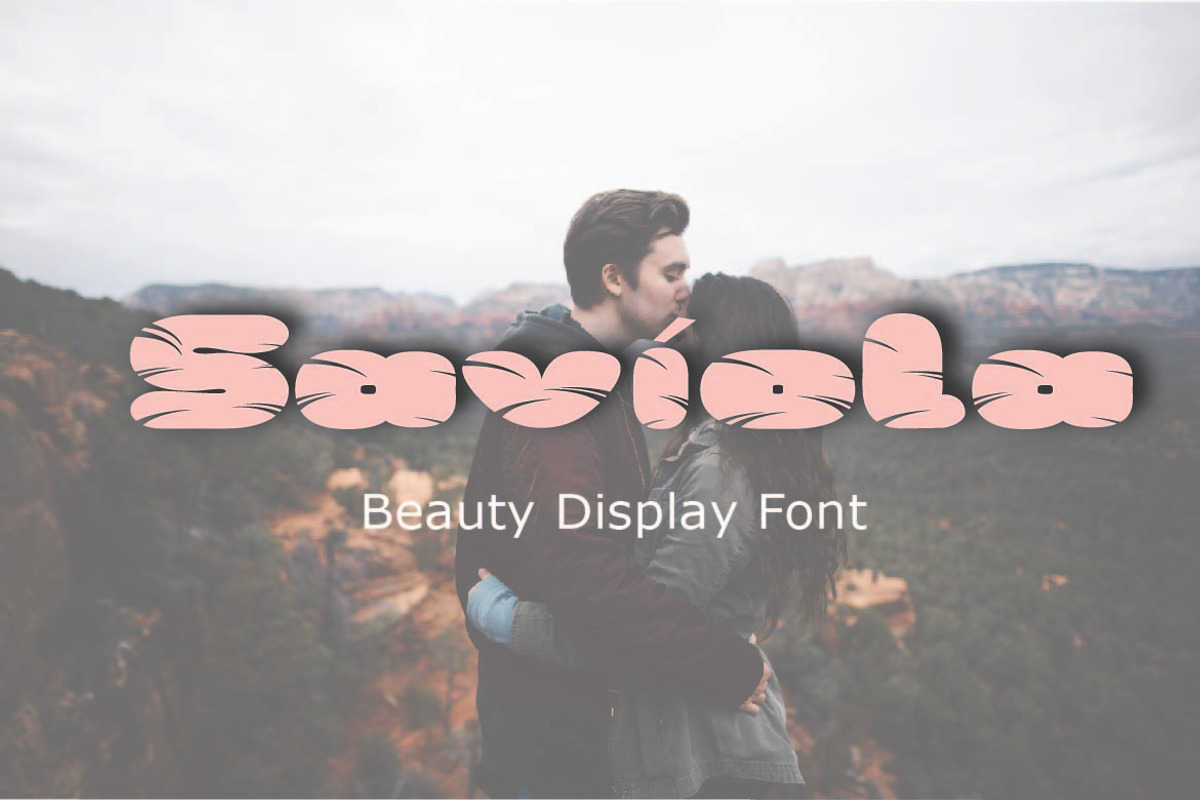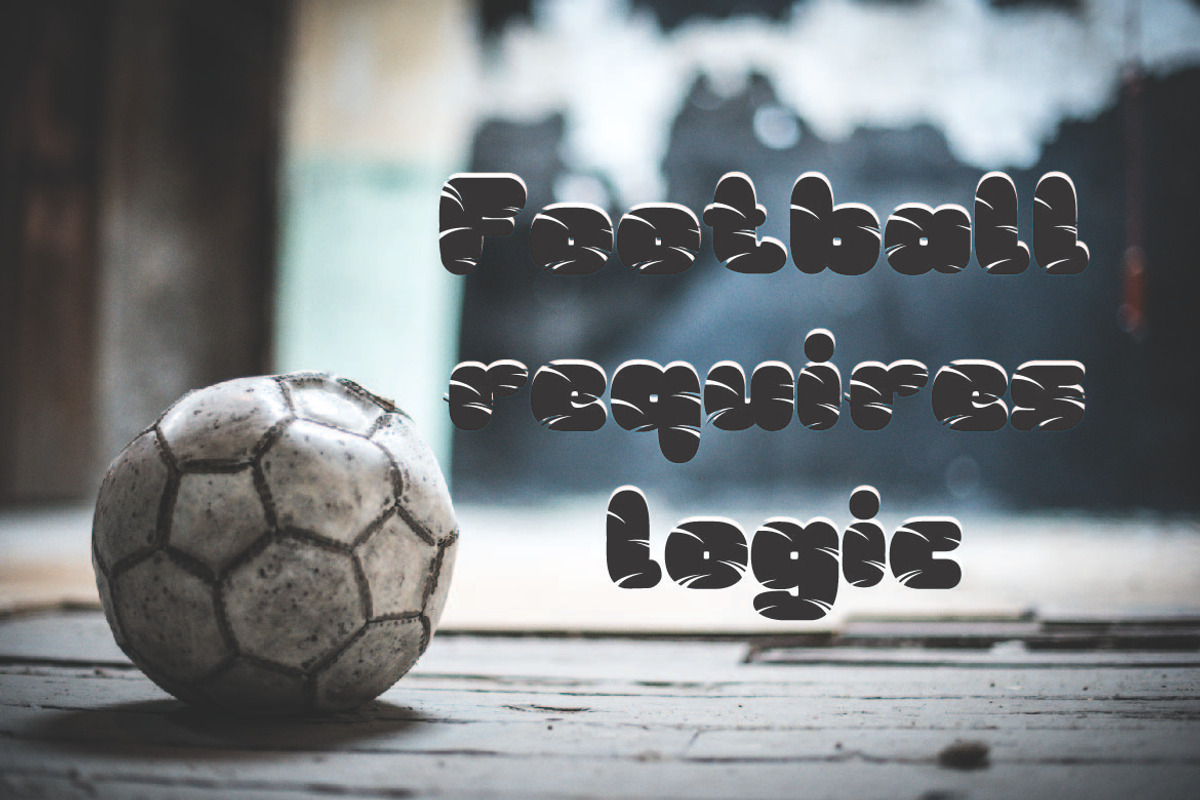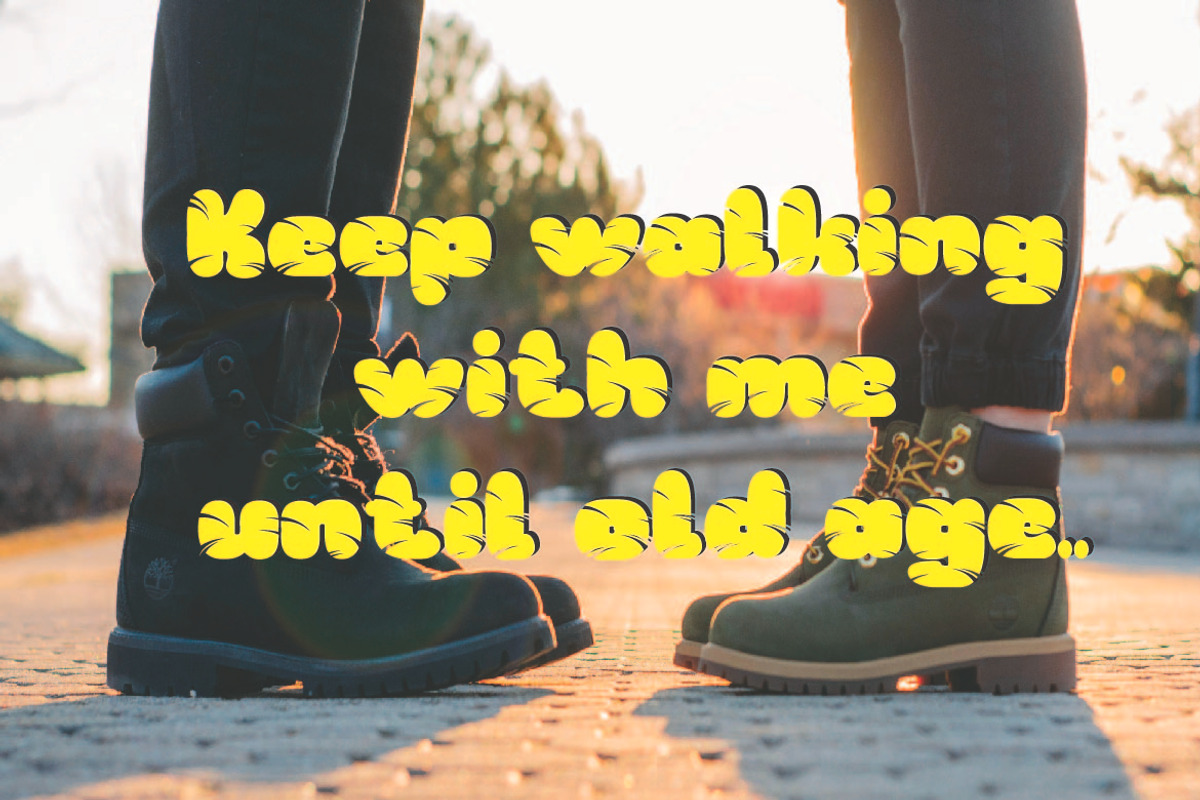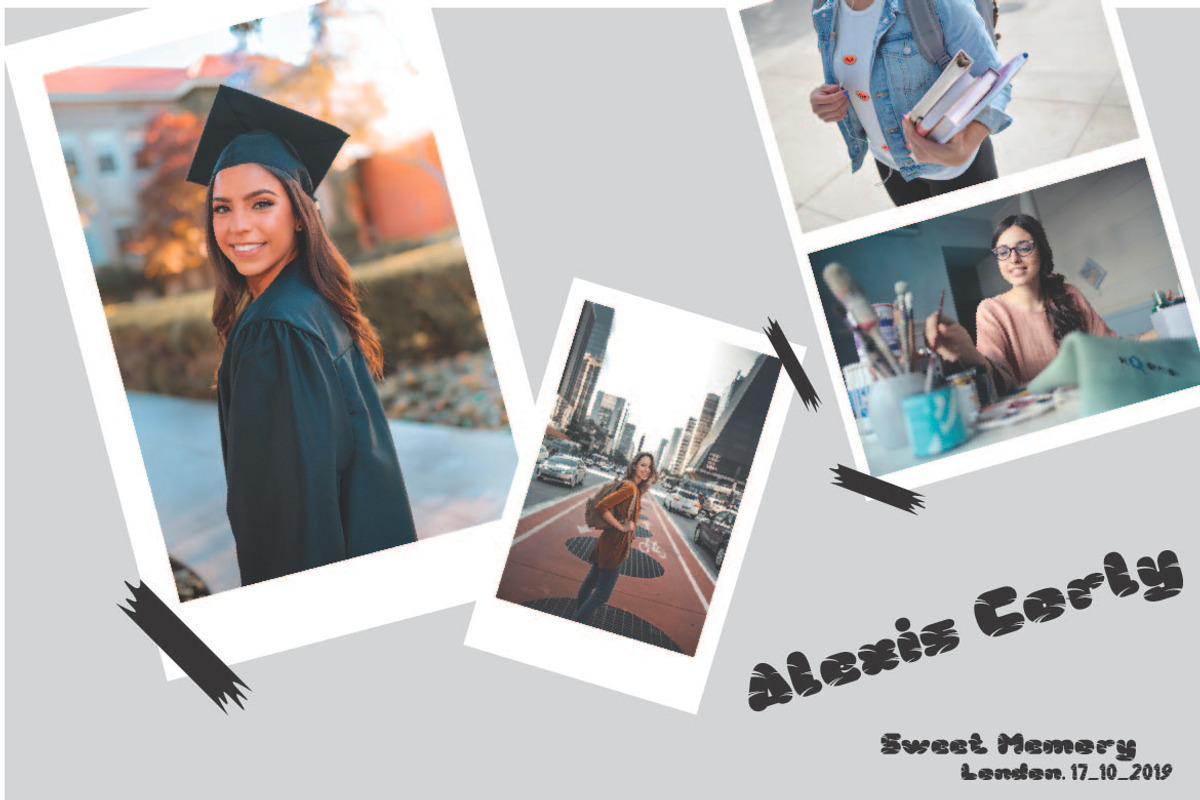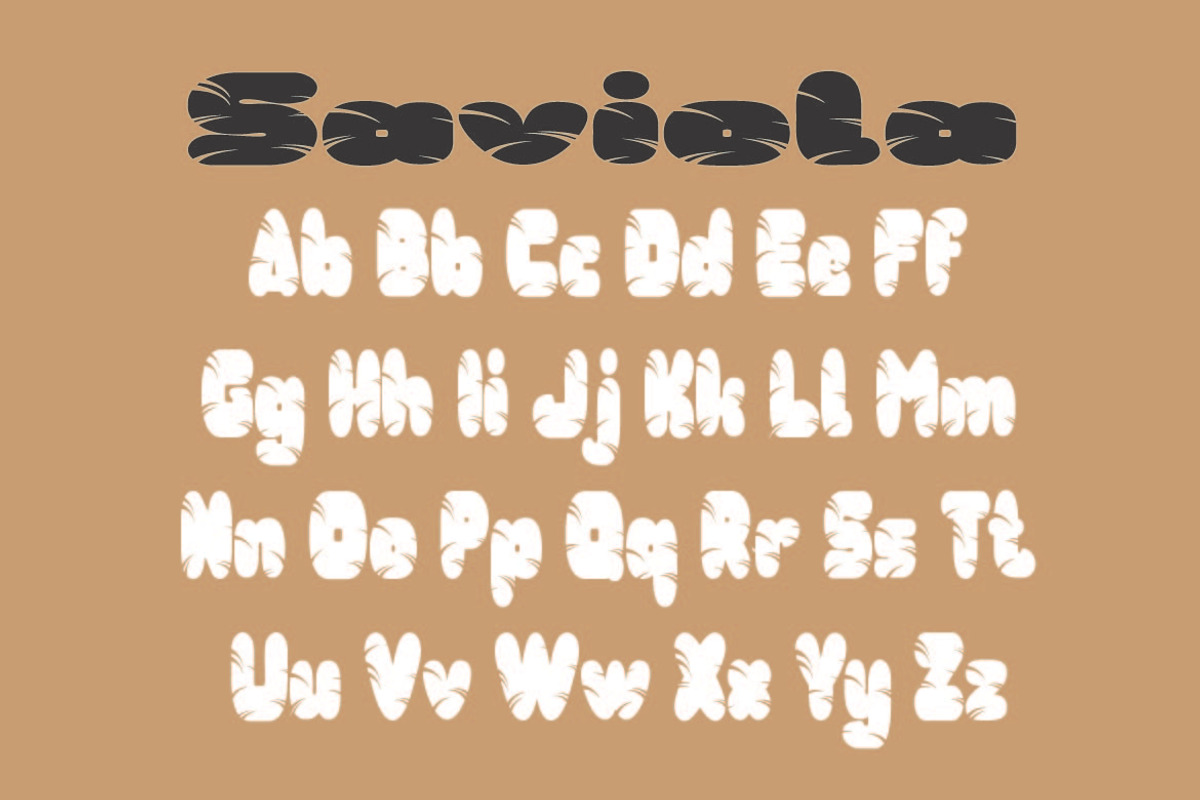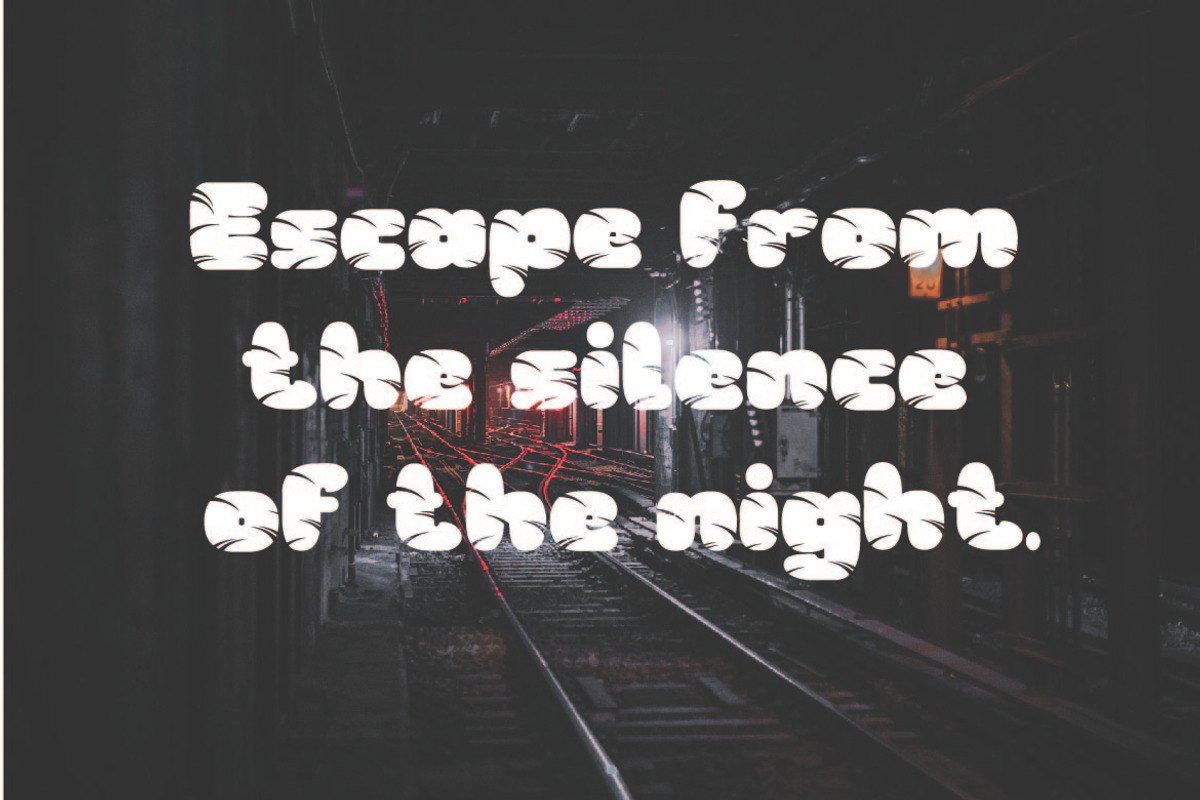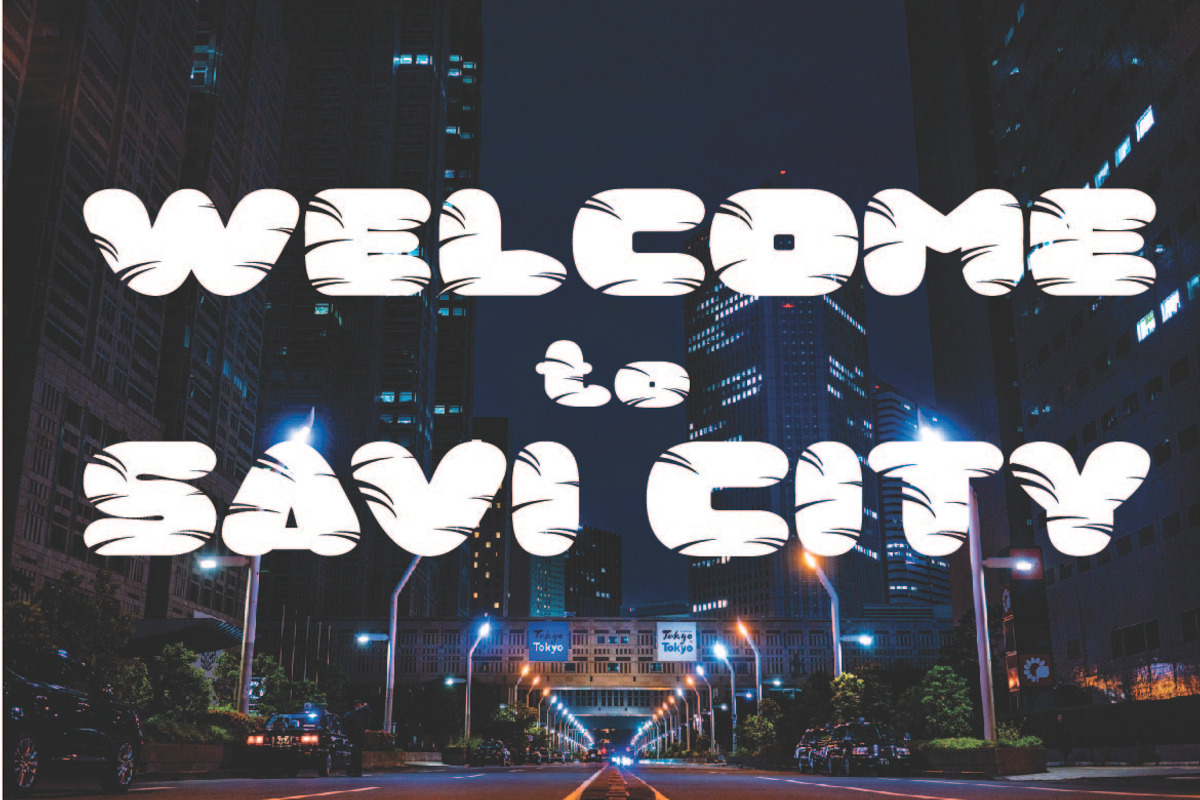
Saviola
Saviola – Modern Display Font with all caps style and bold. You can combine a unique uppercase and lowercase, so it looks like natural.
And this font perfect for signature, logo, branding, poster, band, apparel, photography, title, social media post, ad banner, book cover, product packaging, and advertising